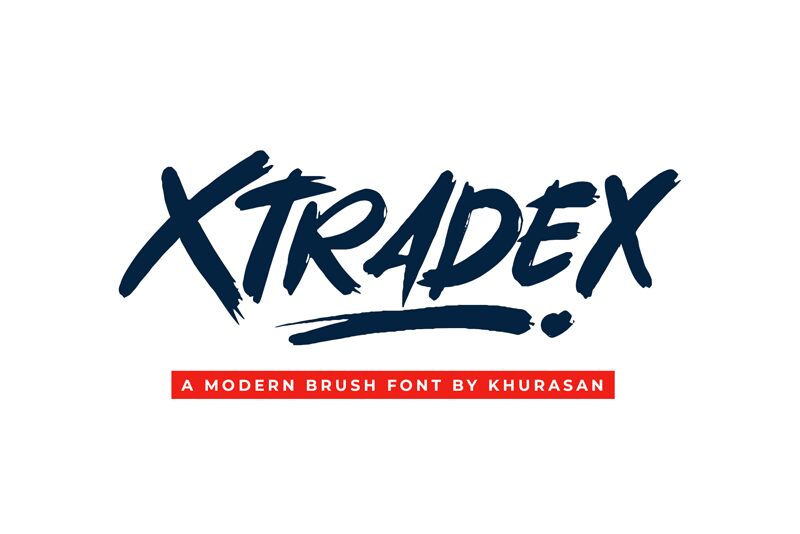
Xtradex, a captivating semi-bold brush font by Khurasan, will breathe life into your design projects. With its dynamic strokes and artistic flair, this font is perfect for crafting eye-catching logos that exude creativity and innovation. Its versatile nature makes it well-suited for various projects like branding materials, packaging designs, and social media graphics. The semi-bold weight adds a touch of boldness while maintaining legibility, making it ideal for headlines and titles that demand attention. Xtradex is the ultimate companion for designers seeking to add a contemporary twist to their visuals with an effortlessly stylish brush font.
Xtradex